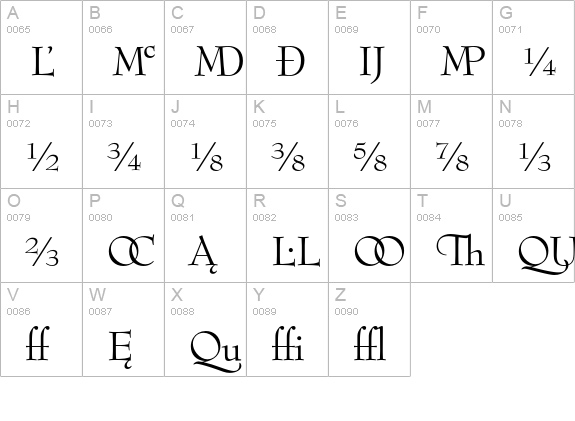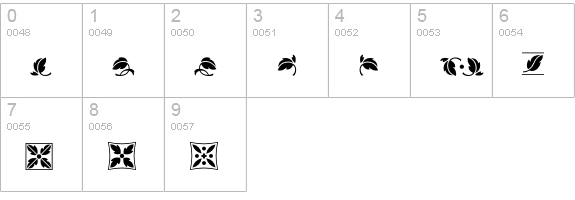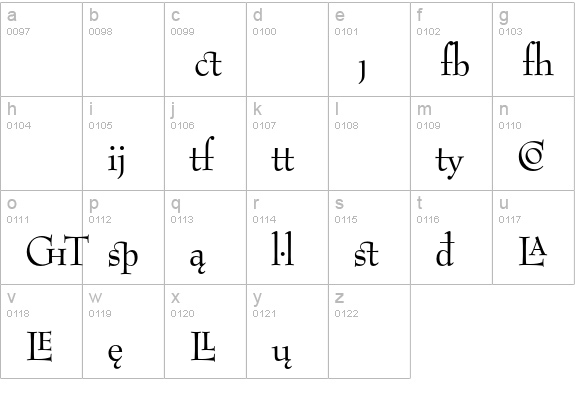
Bernhard Modern Extension Font Details
Bernhard Modern Extension is a sophisticated and elegant font that exudes timeless charm and classic appeal. With its sleek lines and refined details, this font is perfect for adding a touch of sophistication to any project. The tall and slender letterforms of Bernhard Modern Extension make it ideal for headlines, logos, and other design elements that require a touch of class. The font's unique blend of modernity and tradition sets it apart, making it a versatile choice for a wide range of applications. Whether you're working on a branding project, editorial design, or any other creative endeavor, Bernhard Modern Extension is sure to make a lasting impression. And the best part? Bernhard Modern Extension is available for free download at FontsMarket.com. So go ahead and elevate your design projects with this exquisite font today!